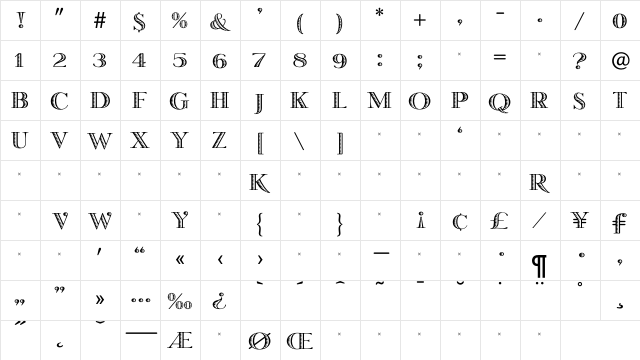
Honduras Regular
Design Context for Honduras Typeface
Honduras is a composed and adaptable typeface that performs quietly and consistently across a wide range of design contexts.